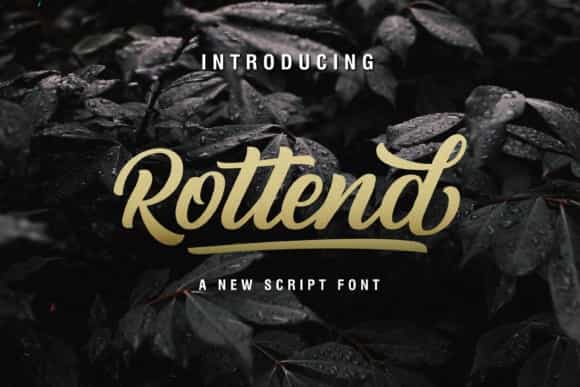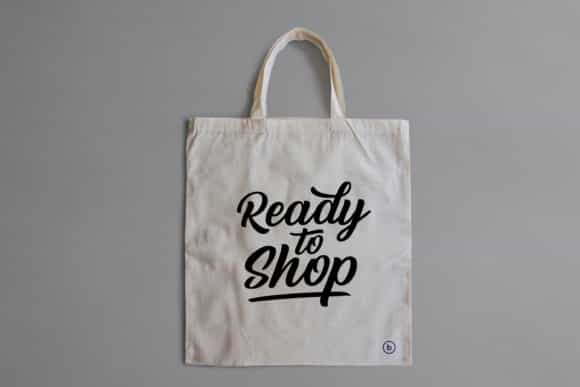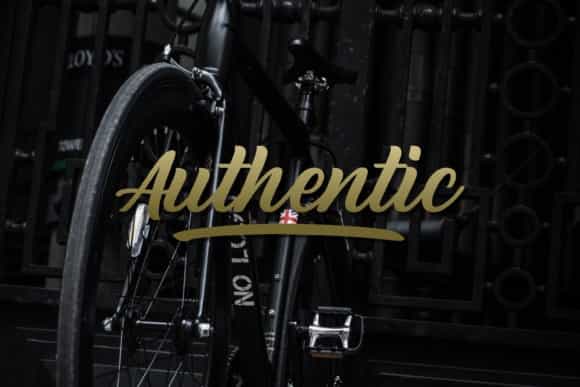
The new Rottend Font is here! For those of you who are in need of a touch of class and modernity for your designs. Rottend was developed with opentype features such as the stylistic alternates, stylistic sets & ligatures that were good for logotype, poster, badge, book cover t-shirt design and so on.